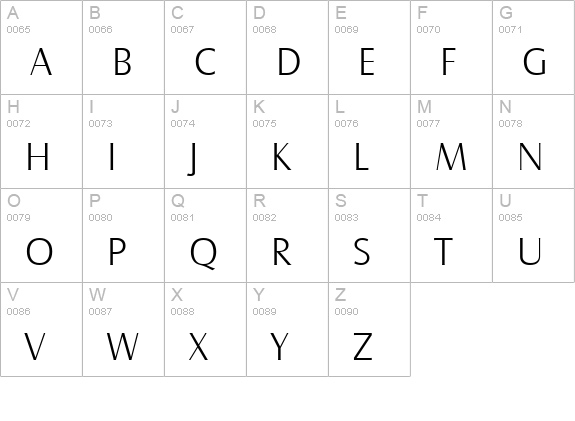
CastleTLig Font Details
CastleTLig font is an elegant and sophisticated typeface that exudes a sense of grandeur and timelessness. The intricate detailing and graceful curves of each letter make it perfect for adding a touch of luxury to any project. The ligatures in this font add a unique and artistic flair, enhancing the overall aesthetic appeal. What makes CastleTLig font even more appealing is that it is available for free download at FontsMarket.com. This means that you can easily access this exquisite font without any cost, making it a valuable addition to your design arsenal. Whether you are working on a branding project, invitation design, or any other creative endeavor, CastleTLig font is sure to elevate your work and leave a lasting impression. Download it today and experience the beauty and elegance of CastleTLig font for yourself.